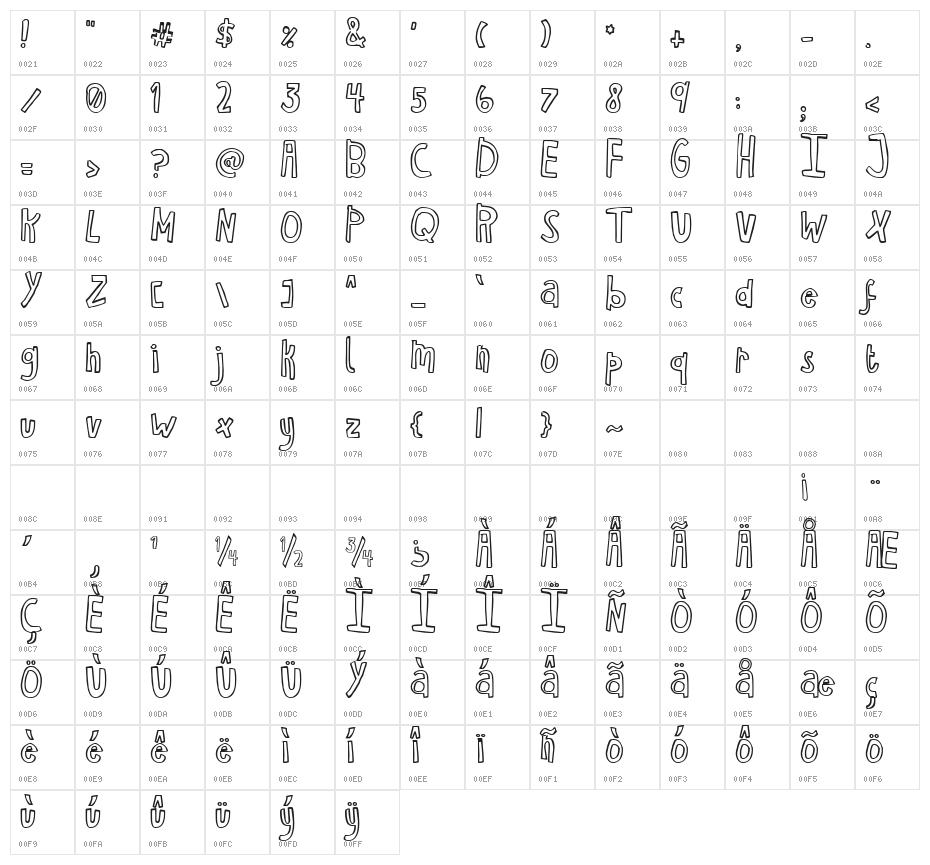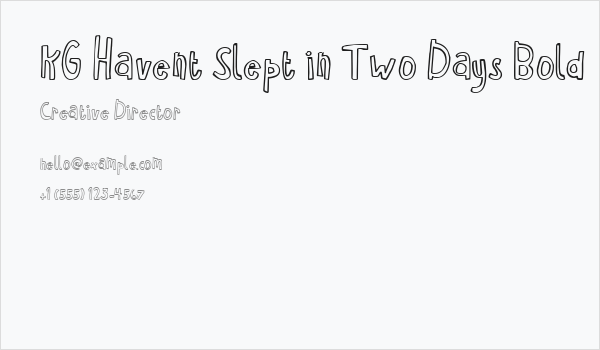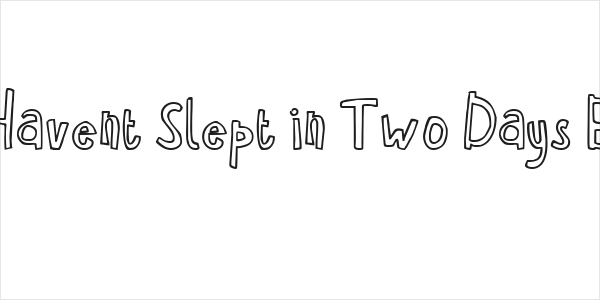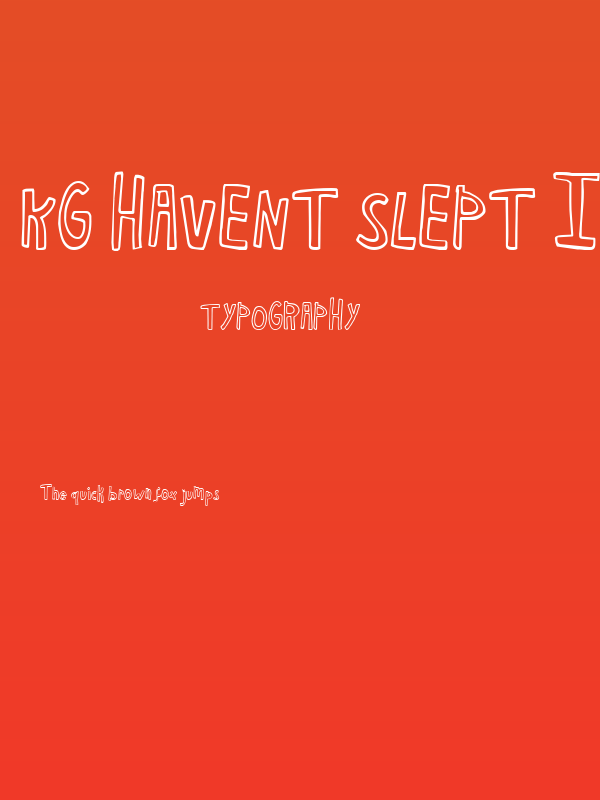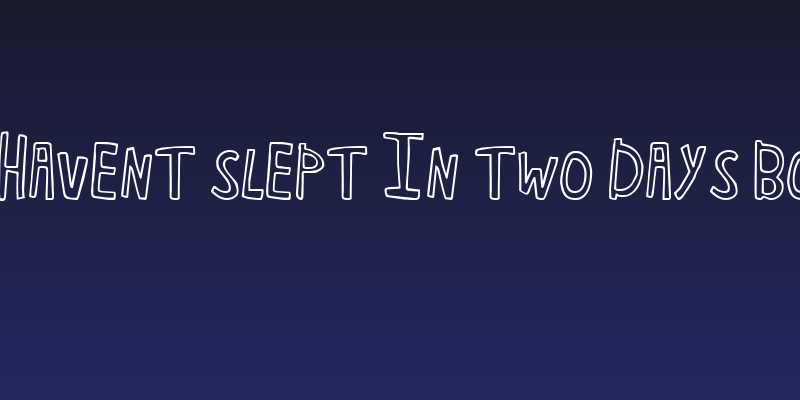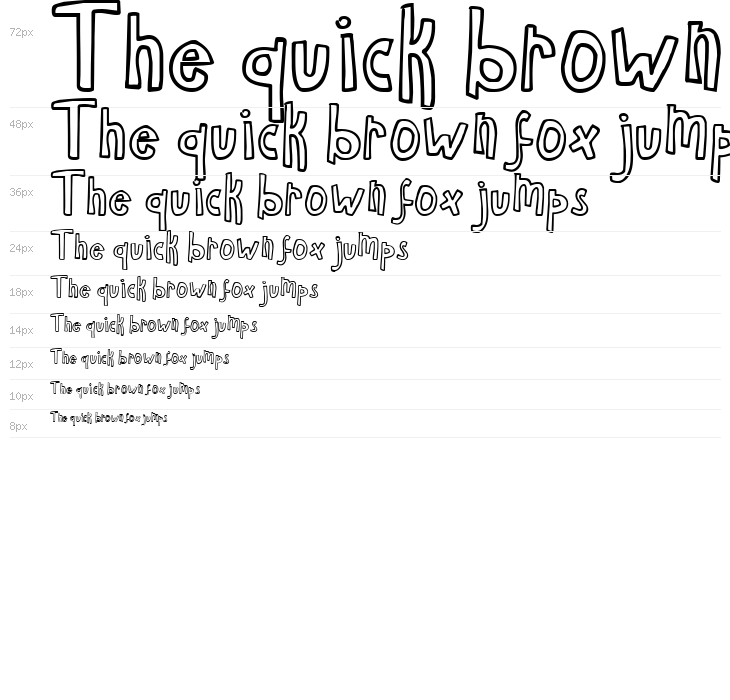
KG Havent Slept in Two Days Bold Font
KG Havent Slept in Two Days Bold Description
This playful and quirky font features a hand-drawn style with uneven lines and a casual appearance. The characters are outlined, giving them a bold and cartoonish look. Each letter has a unique, slightly irregular shape, adding to the font's whimsical charm. The uppercase and lowercase letters maintain a consistent style, with rounded edges and a friendly demeanor. Numbers and special characters are included, all following the same playful design. This font is perfect for projects that require a fun and informal touch, such as children's books, posters, or creative invitations.
| Overall Style | Playful, Quirky, Hand-drawn |
| Use Case | Headlines, Posters, Creative Projects |
| Proposed Projects | Ideal for children's books, playful posters, creative invitations, and informal branding. |